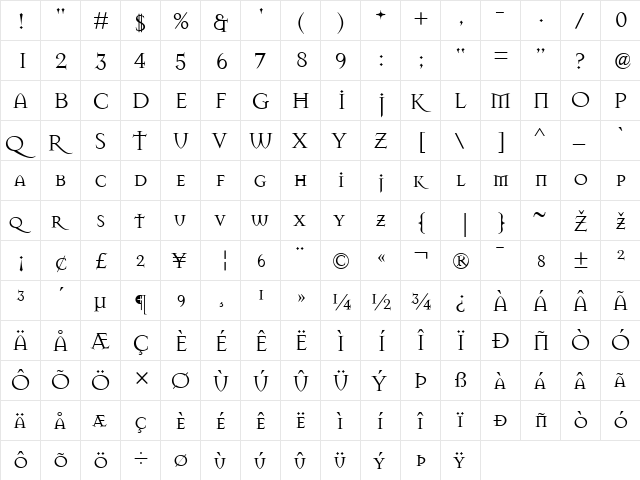
Mason Regular
| Foundry | C) Emigre Graphics; Designed by Jonathan Barnbrook |
Design Context for Mason Typeface
Mason is a composed and adaptable typeface that performs quietly and consistently across a wide range of design contexts.